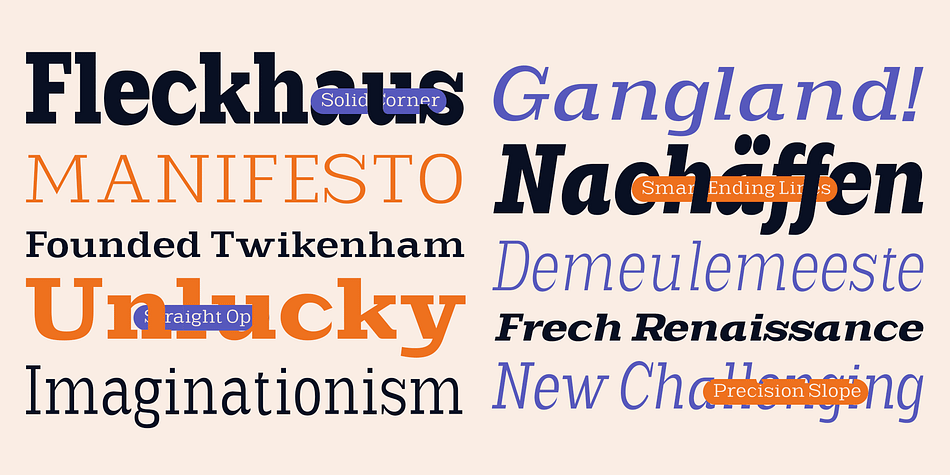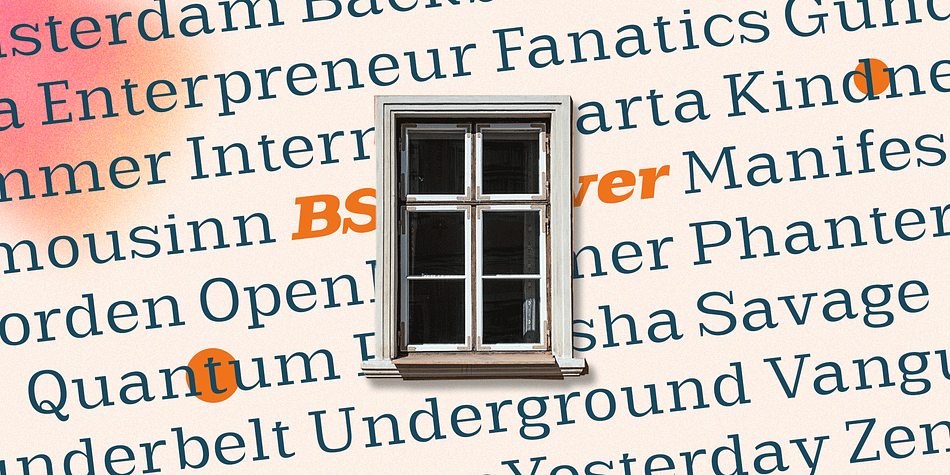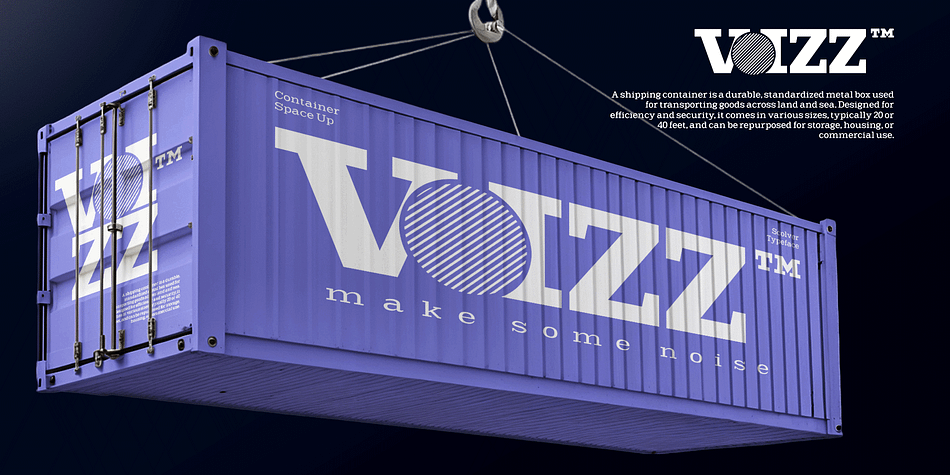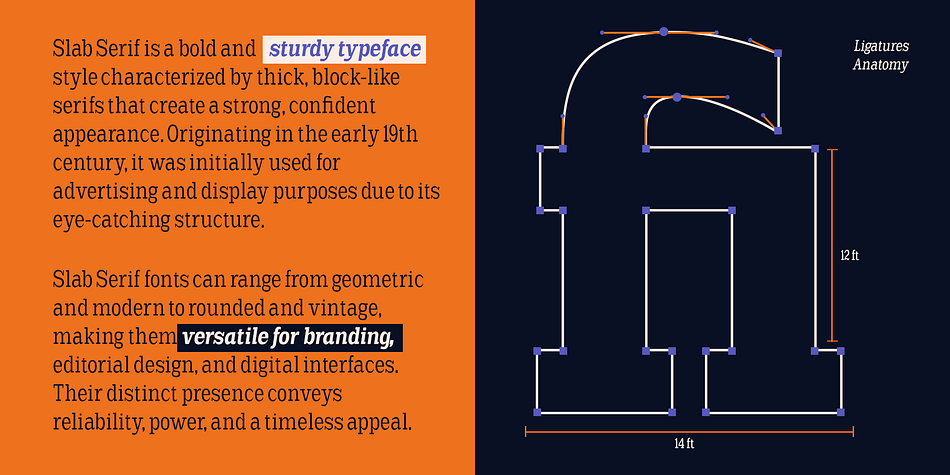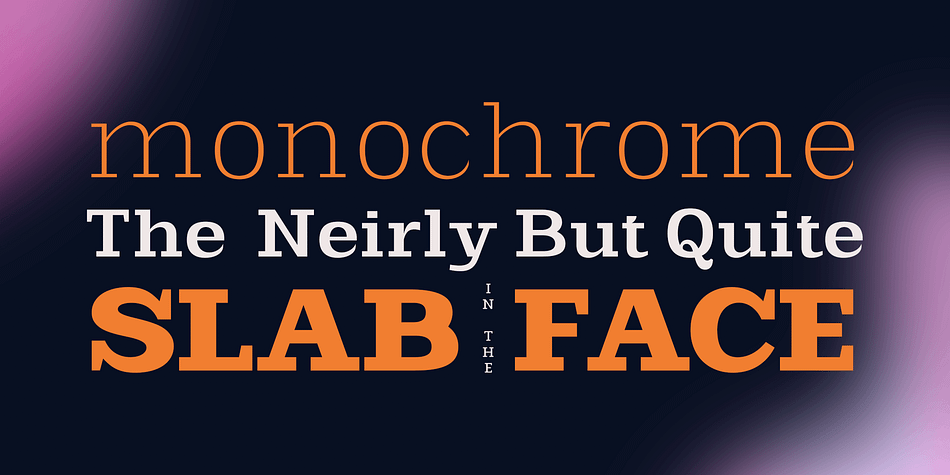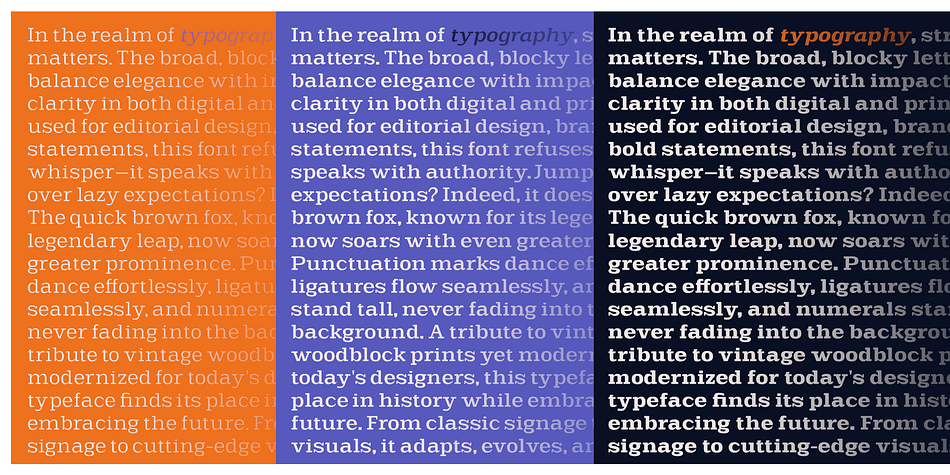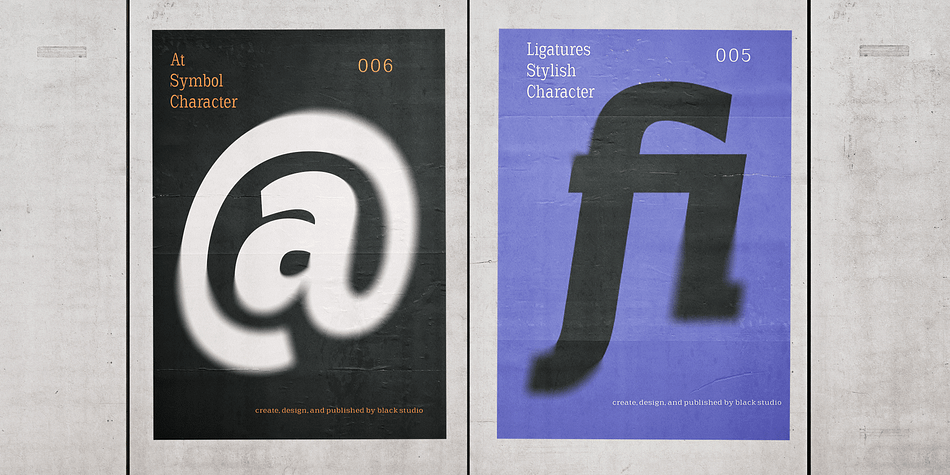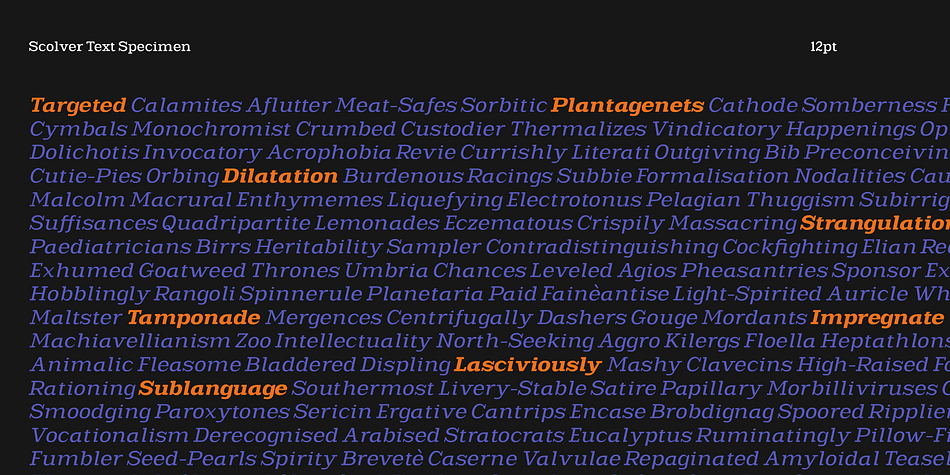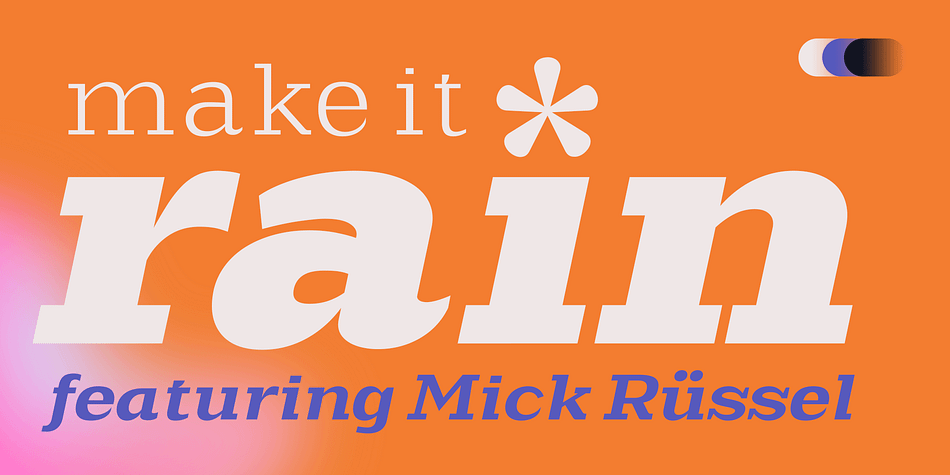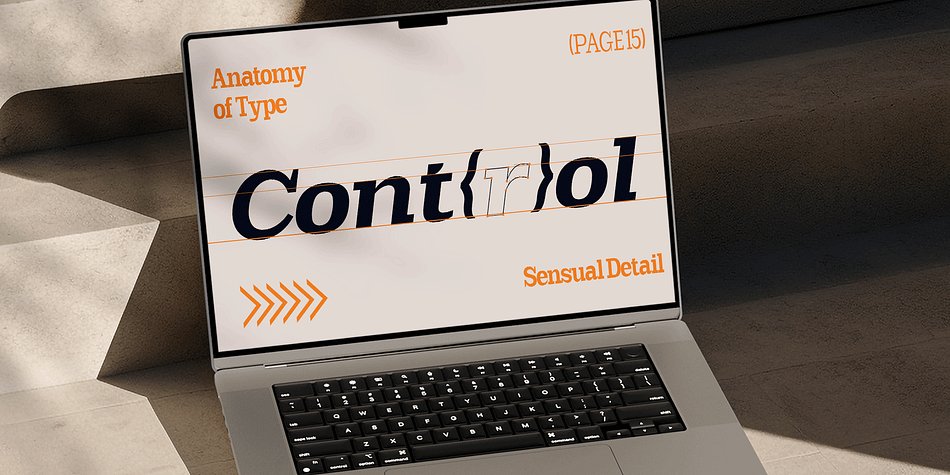
Scolver
Scolver is a serif font family. This typeface has eighty-three styles and was published by Black Studio.
Scolver is a bold and flexible slab serif variable type family designed to adapt across a wide range of visual applications. It features four expressive styles—Weight, Slant, Width, and Italic—each offering distinct typographic flavor while maintaining a consistent core structure. From the solid confidence of its heavy weights to the dynamic movement of Slant and Italic styles, Scolver is both functional and characterful.
With four variable axes, Scolver provides granular control over weight, width, slant, and italic construction, enabling smooth transitions and nuanced typographic expression. Whether used in editorial, branding, or interactive design, Scolver balances the strength of slab serifs with the versatility of a truly modern variable font system.
Typeface Features:
- 381 Glyphs
- 4 Subfamilies: Weight, Slant, Width, Italic
- 9 Weight: Thin, Extra Light, Light, Regular, Medium, Semi Bold, Bold, Extra Bold, Black
- Complete Collection: 81 Styles + 2 Variable Normal & Italic
- Kerning